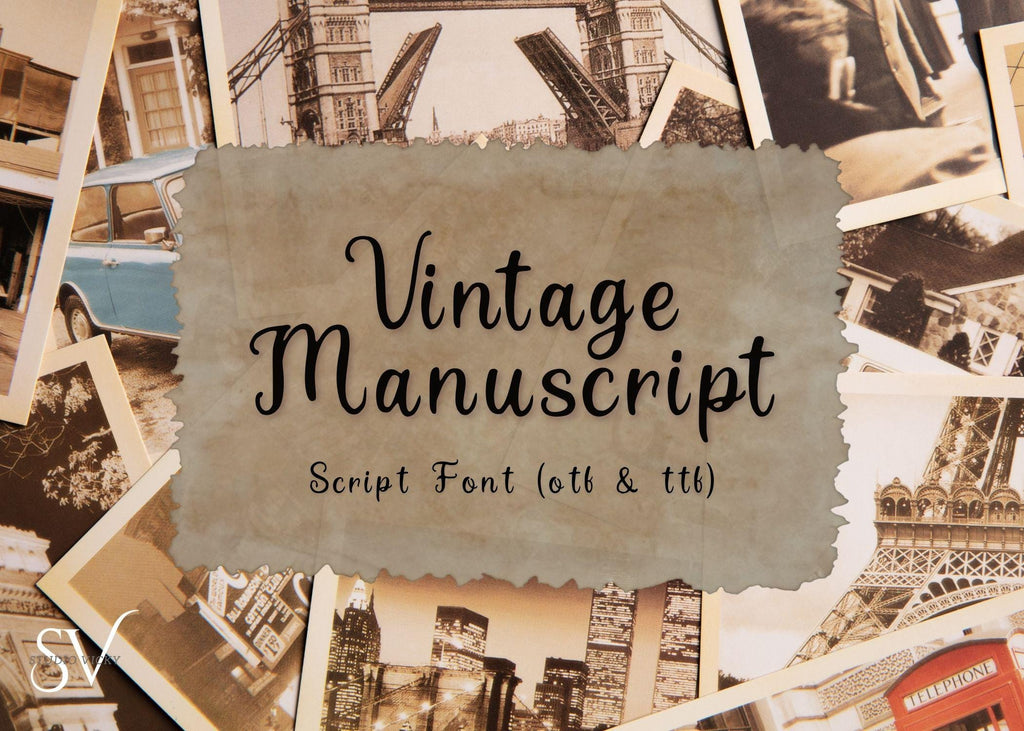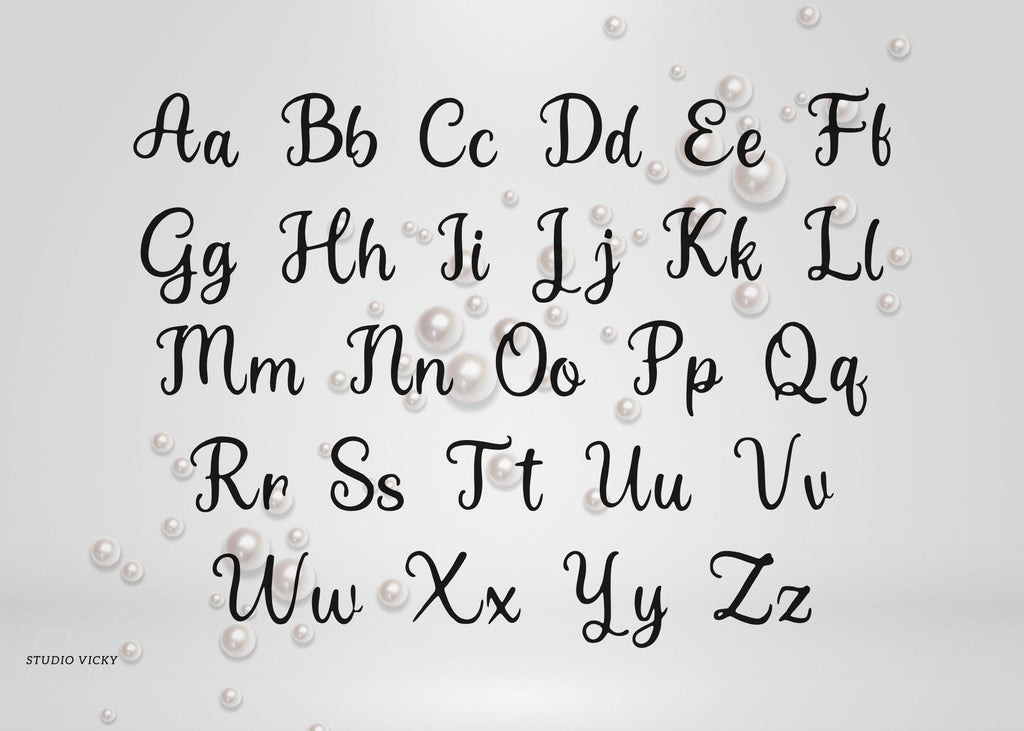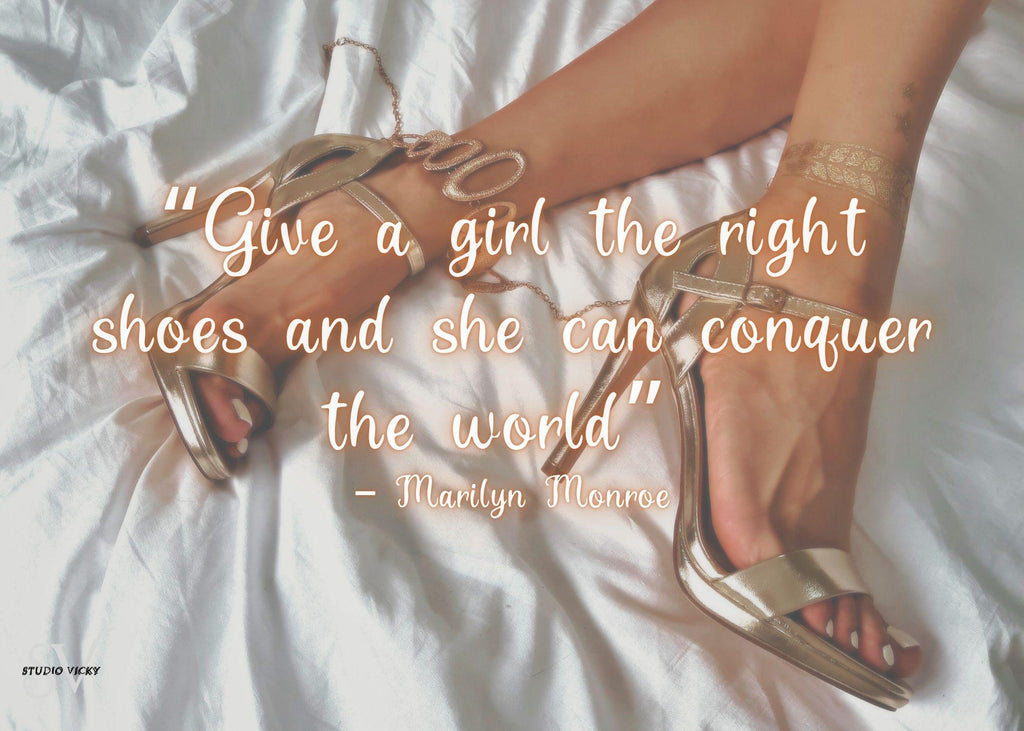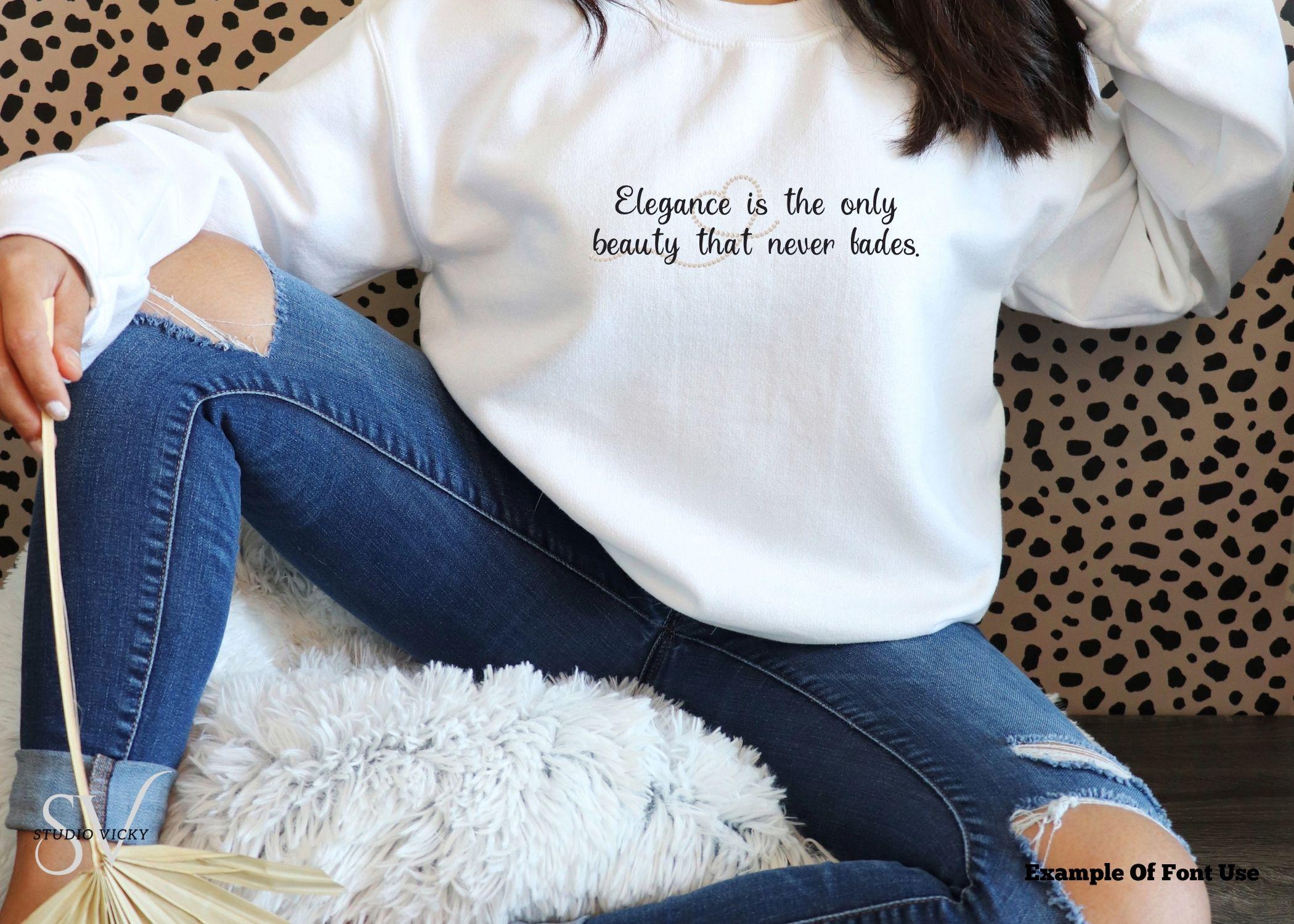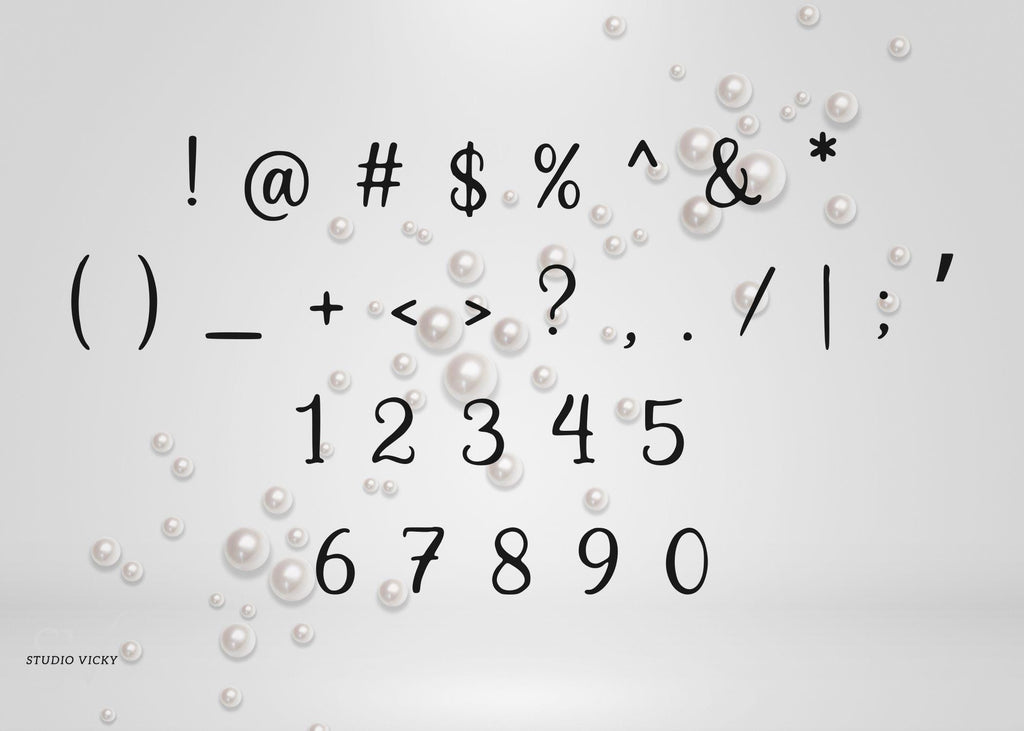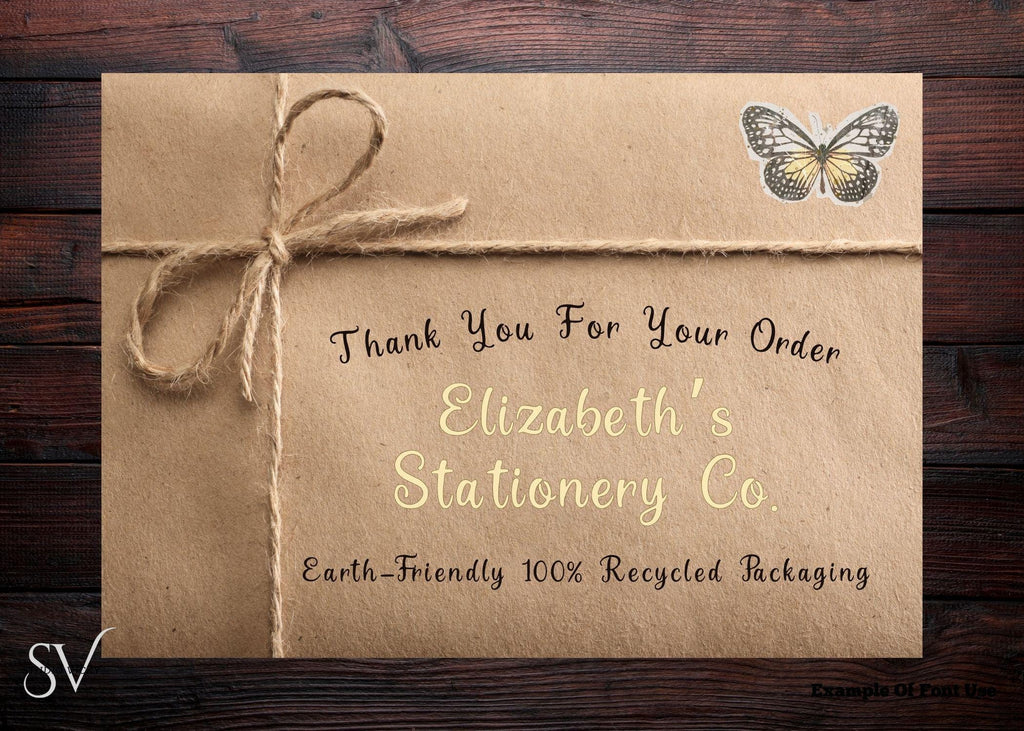
Step back in time with Vintage Manuscript, an elegant antique-style script font inspired by the flowing penmanship of historical letters, old book pages, and classic calligraphy. With graceful strokes and timeless charm, this font is perfect for wedding invitations, historical designs, period-themed projects, and vintage branding.
Whether youβre crafting romantic stationery, recreating antique documents, or designing for film and theater, Vintage Manuscript delivers sophistication with a hint of nostalgia.
Elegant vintage script styling
Ideal for formal and historical projects
Smooth curves for beautiful print and digital designs
Bring the beauty of bygone handwriting into your work with Vintage Manuscript.